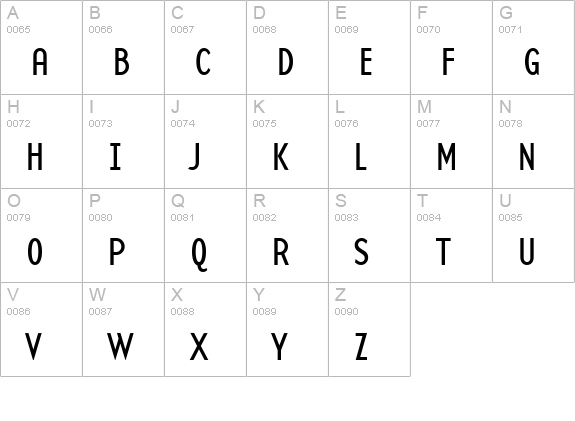
BaseTwelveSans Regular is the standard, neutral variant in the BaseTwelveSans typeface family \xE2\x80\x94 well suited to general body text, paragraphs, and standard typographic work.